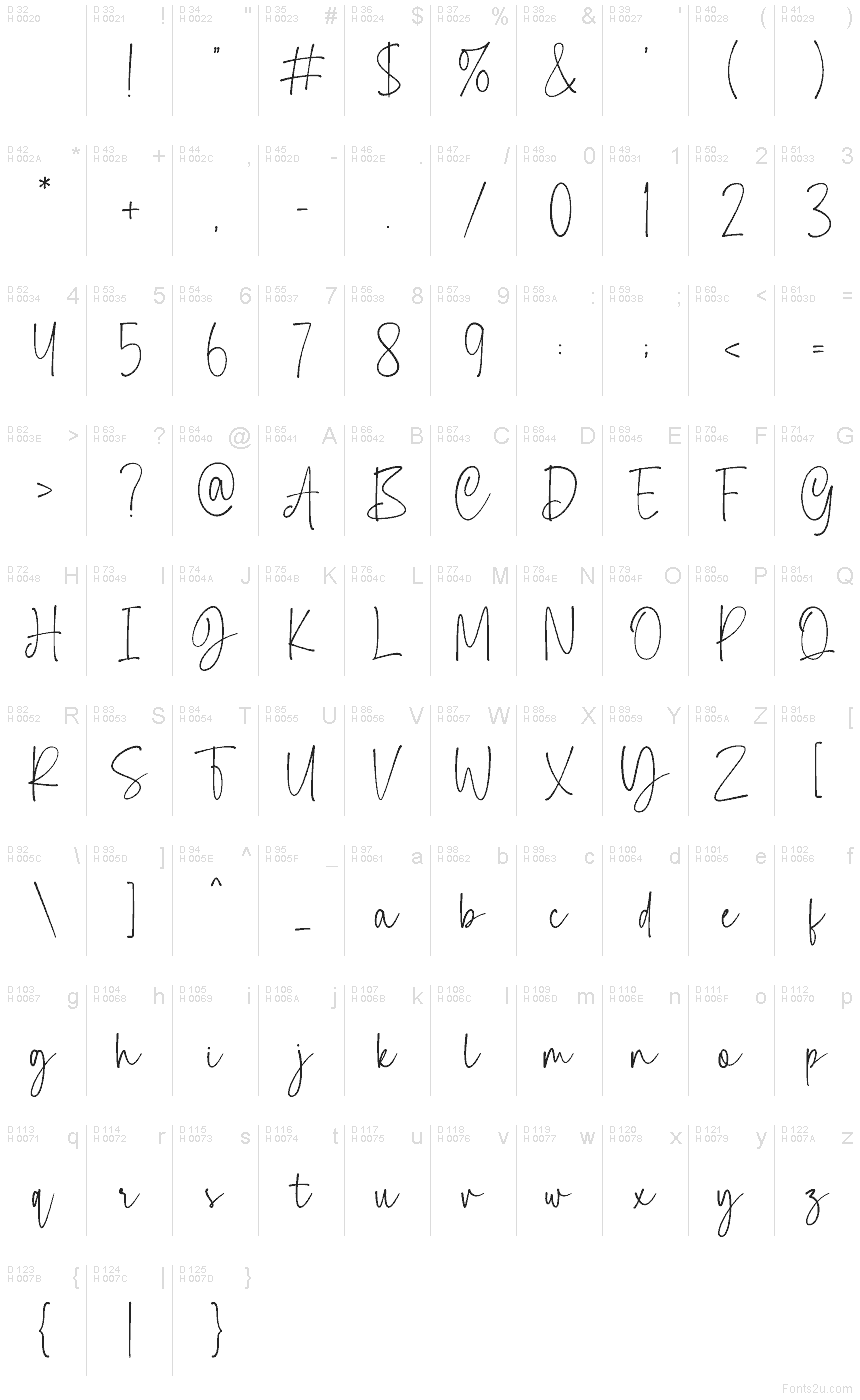
Jesyta
Jestyta font by RantautypeStudio is a fluid light handwritten typeface with an artistic flowing appearance. It could be just the script of choice for a crafted typing experience and elegant projects that require expressive texts. The highly modern design is simple yet has lots of personality in every curve.